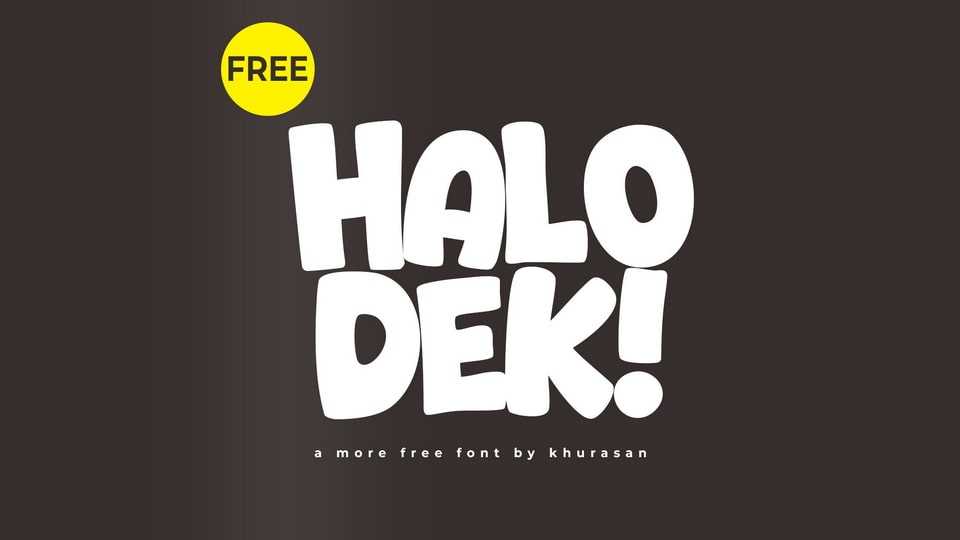
Download Halo Dek font, a bold and irresistibly cute hand-crafted cartoon typeface with plump, rounded letterforms that radiate warmth and playfulness.